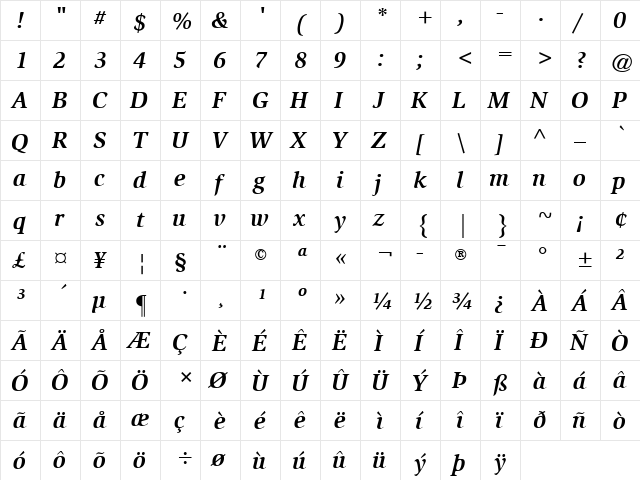
Slimbach LT Bold Italic Font Preview
Design Context for Slimbach LT Typeface
Slimbach LT offers clean, dependable letterforms without strong stylistic allegiance, making it a practical choice for designers who need flexibility. The dynamic lean of this cut emphasises speed and emphasis in any layout. The heavy weight commands attention and anchors typographic hierarchies.
Pro Tip: Try Slimbach LT for annotation and caption copy alongside an upright companion — the contrast in angle creates a dynamic but ordered typographic system.